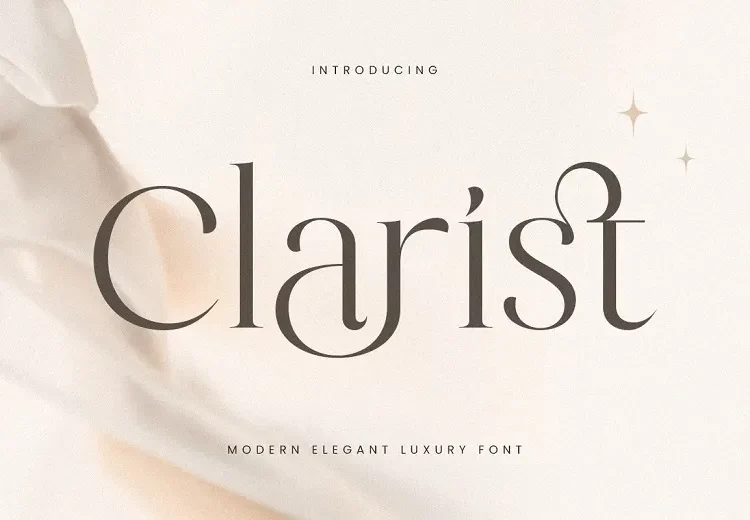
Clarist Font
Clarist is a modern serif typeface designed to bring a touch of glamour and sophistication to any project. With its beautifully curved characters, this font is perfect for creating a cinematic feel in designs such as logos, brands, wedding invitations, and quote typography. It’s also an excellent choice for high-end magazine or book covers, web headers, and other projects where elegance and class are paramount.
What makes Clarist particularly versatile is its functionality. The font includes ligatures, punctuation, numbers, symbols, and supports multiple languages, making it a valuable tool for various design needs. Whether you’re working on physical print projects or digital designs, Clarist adds a luxurious and polished look, making it an essential asset for any designer’s toolkit.